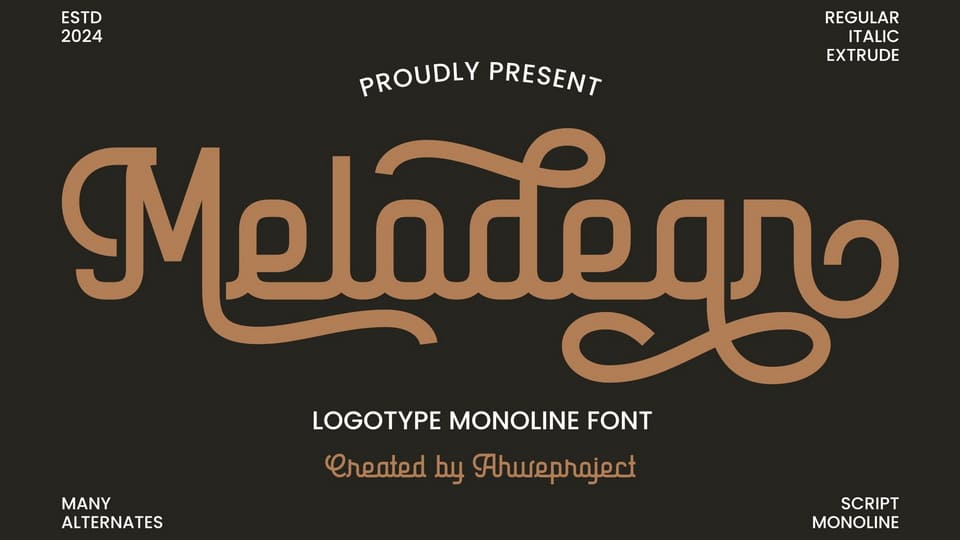
Download Melodean font, a monoline script that captures the essence of tradition and the spirit of creativity, rooted in the art of hand-lettering and an array of calligraphy styles.